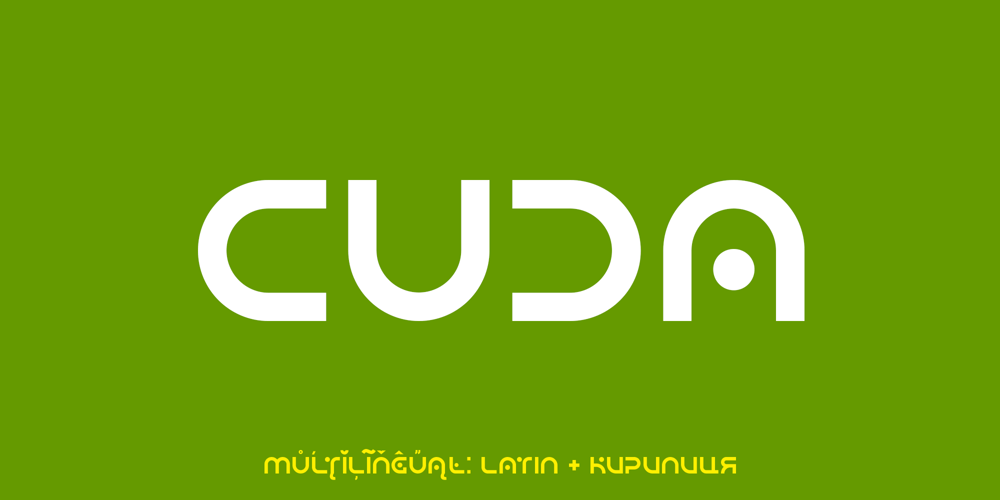
Cuda Font Family was designed by Dmytro Poliakh and published by Sentavio. Cuda contains 2 styles and family package options. CUDA font creates futuristic hi-tech atmosphere and style.It is good looking as header and as text both. Use it in your projects in such areas as robots & androids, hi-tech, future, virtual reality, space, sport and many others.